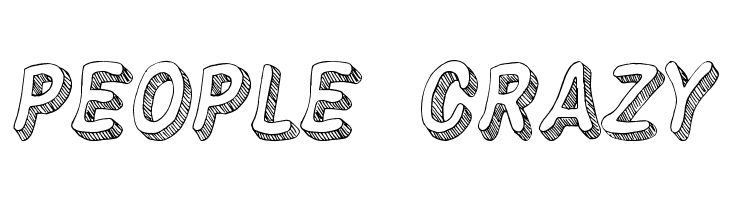
Wynford Oblique Line Font
- Font: Wynford Oblique Line
( Fonts by Rodrigo German - RASDESIGN )
A bold, outlined font with geometric structure and modern appeal.